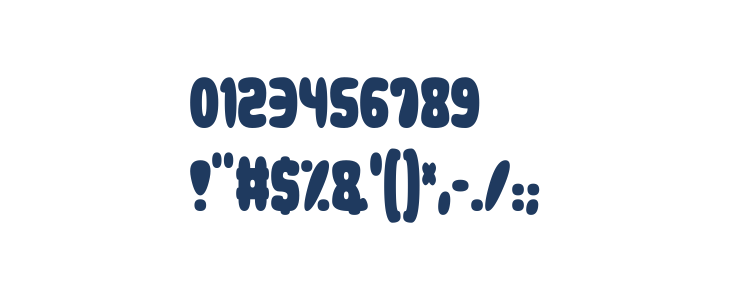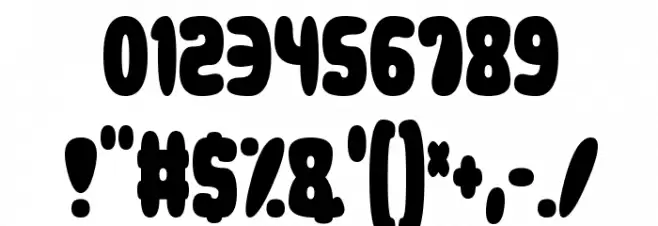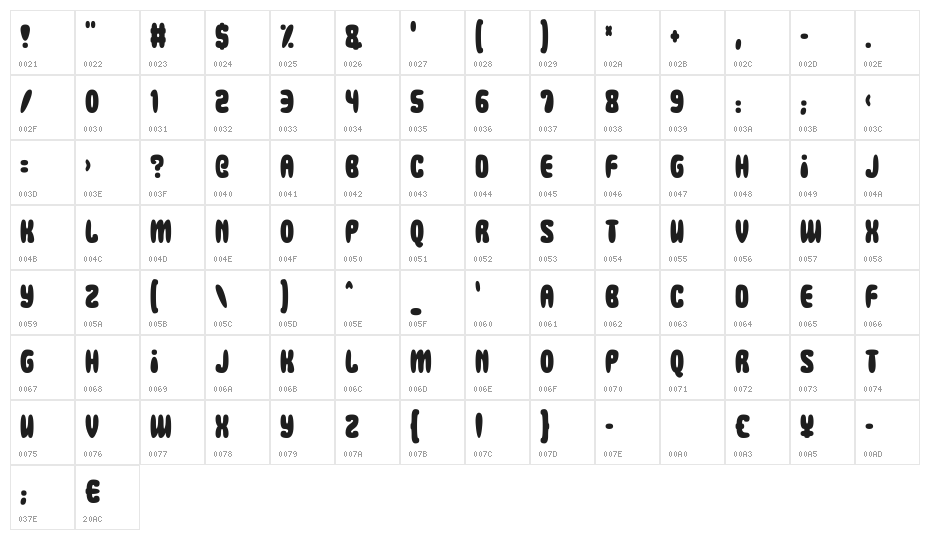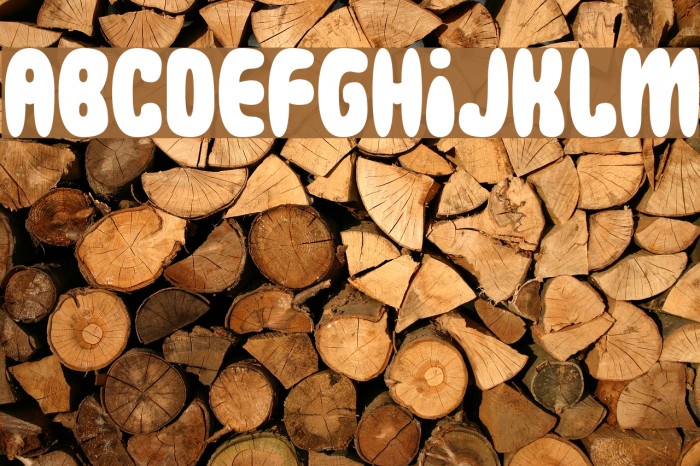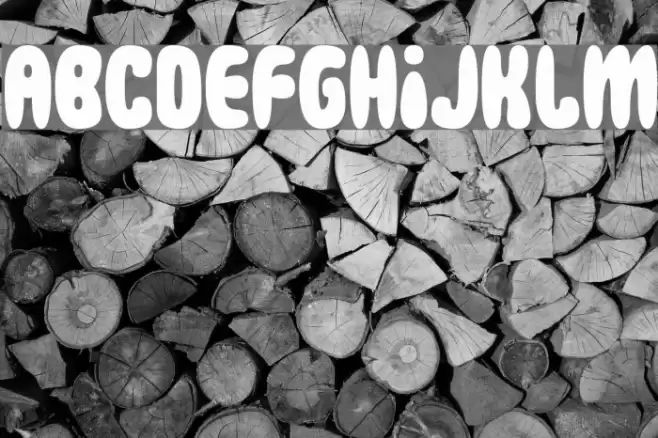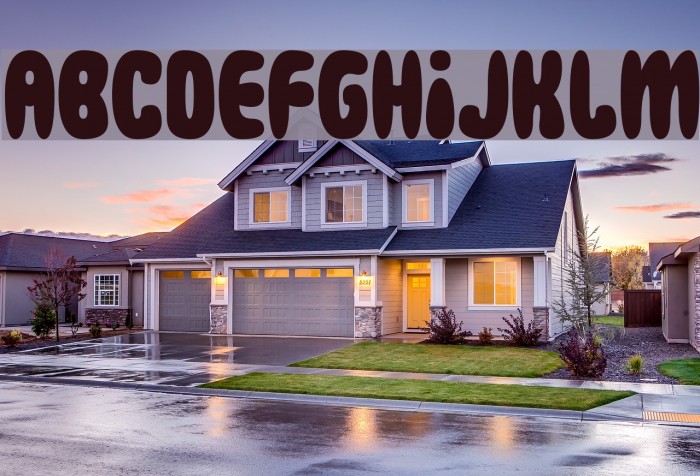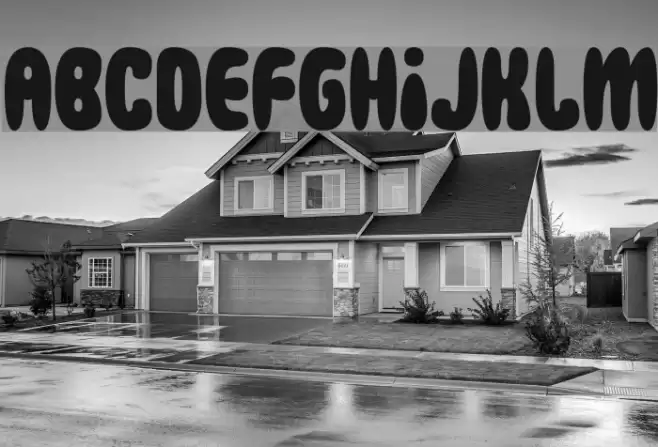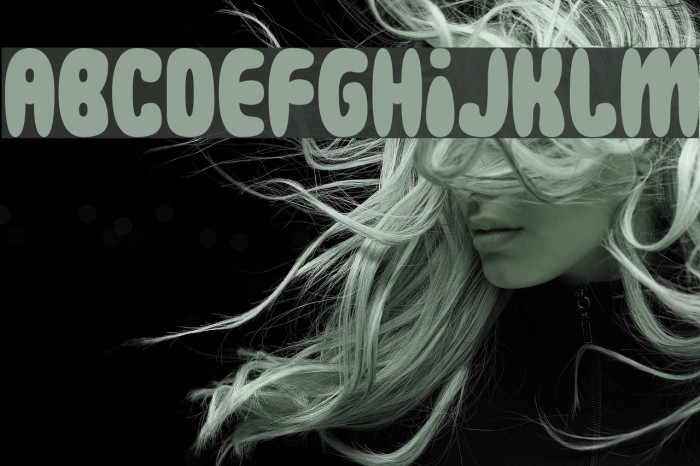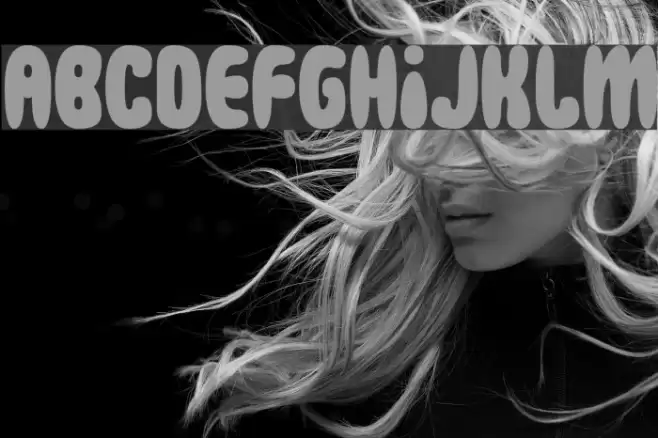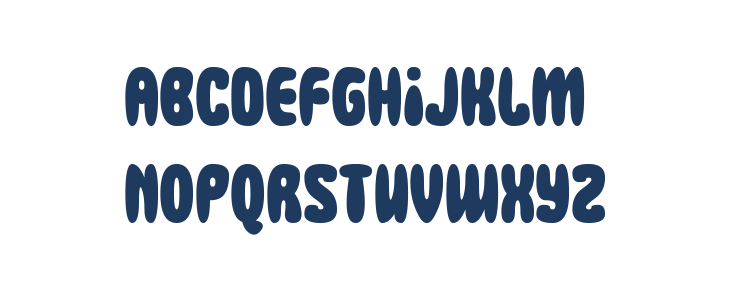
Squidgy Slimes Font
Squidgy Slimes Description
This playful and bold font features thick, rounded characters that exude a sense of fun and whimsy. The letters are uniformly wide, with a consistent stroke weight that gives them a solid, substantial appearance. The overall design is reminiscent of bubble letters, with a soft, approachable aesthetic. The characters are well-spaced, ensuring readability while maintaining a cohesive look. This font is perfect for projects that require a touch of humor or lightheartedness, making it ideal for children's materials, playful branding, or any creative endeavor that seeks to capture attention with its unique style.
| Proposed Projects | Ideal for children's books, playful branding, posters, and creative designs. |